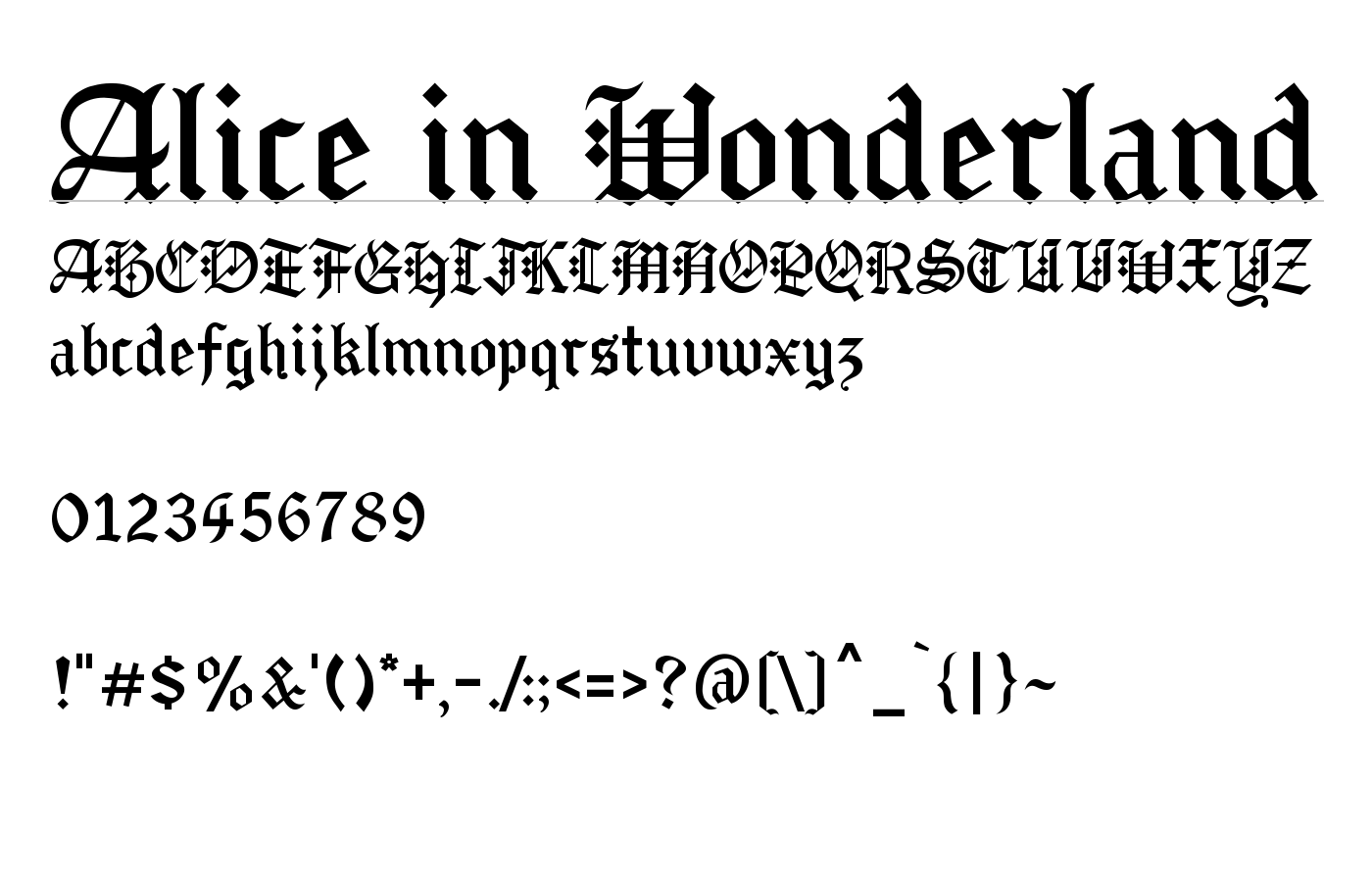
Alice in Wonderland Font is a bold blackletter typeface that features strong contrast between thick and thin strokes, sharp angular serifs, and intricate decorative details. Its dramatic, old-style Gothic appearance conveys a vintage and mysterious feel, making it ideal for fantasy-themed designs, book covers, and branding that seeks an antique or whimsical charm. This font works best in headlines and display contexts where its unique character can truly stand out and add a touch of dark elegance.
Alice in Wonderland Font
About Alice in Wonderland Font
| Font family | Alice in Wonderland Font |
| Designer | Yining Chen |